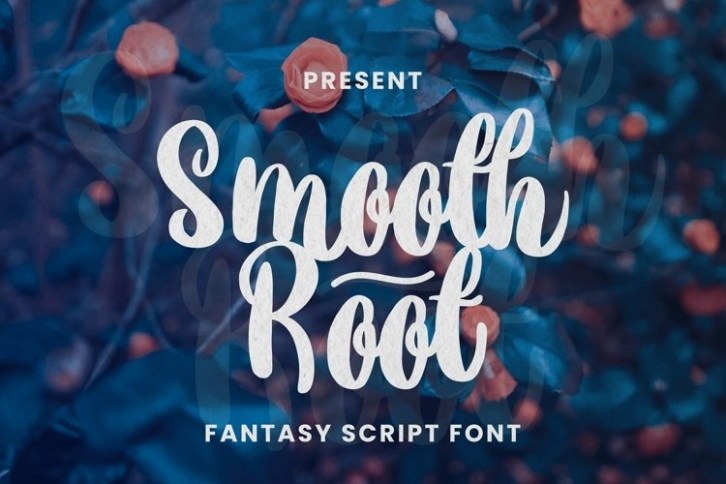
Web Smooth Root is a trendy and unique font with an authentic style. It was designed by plusstore and it's a great choice for creative people who need such a font. It was released on August 14, 2021 and the file size is 19.83 MB. Web Smooth Root will add an organic vibe to any design idea!